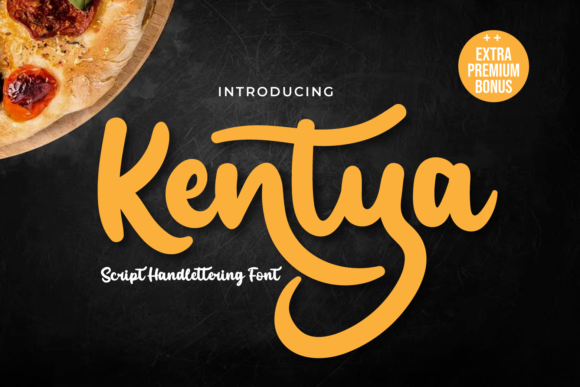
Unleash the Power of Authenticity with Kentya Font: Your Gateway to Distinctive Branding
In a world saturated with digital noise, your brand identity is your beacon of distinction. It's the silent ambassador that speaks volumes about your values, your ethos, and your unique story. With Kentya Font, you hold the key to crafting a visual identity that resonates with your audience, leaving an indelible mark on their minds.
A Symphony of Elegance and Versatility: The Kentya Font Experience
Kentya Font is a captivating script font that dances across the screen with a graceful, brushed texture. Its fluid strokes evoke a sense of effortless elegance, while its carefully crafted curves exude a touch of playfulness. This font is a true chameleon, effortlessly adapting to a myriad of design aesthetics, from classic and timeless to modern and edgy.
Make Your Brand Sing with Kentya Font: The Perfect Chorus for Your Visual Identity
Whether you're a seasoned designer or a creative entrepreneur just starting out, Kentya Font is your ultimate weapon in the battle for brand differentiation. Its versatility knows no bounds, lending itself seamlessly to logos, branding materials, social media graphics, and website designs. Imagine your brand name flowing beautifully across a business card, your logo standing out boldly on a billboard, or your social media posts captivating audiences with their distinctive typography.
A Font That Inspires: Unleashing Your Creative Potential
With Kentya Font, you're not just downloading a font; you're inviting creativity into your design process. Its organic, hand-crafted feel ignites your imagination, encouraging you to think outside the box and explore new design possibilities. Let your ideas flow freely, knowing that Kentya Font will faithfully translate them into visually stunning creations.
Join the Creative Revolution: Embrace Kentya Font Today
Don't settle for ordinary fonts that blend into the background. Choose Kentya Font and watch your brand take center stage. Experience the joy of creating designs that captivate, engage, and inspire. Your customers will feel the difference, recognizing the authenticity and passion embedded in every stroke of Kentya Font.